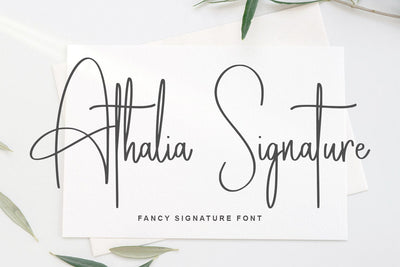
Athalia Signature
introducing
ATHALIA SIGNATURE
- fancy signature font-
ATHALIA is natural signature font which is great for branding, quotes, logos, t-shirt designs, tote bag designs, cards, banners, social media, and more.